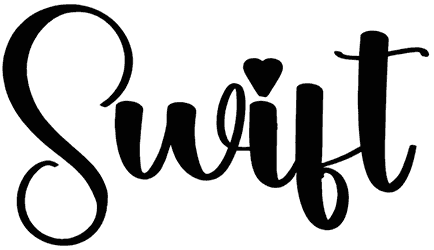
Swift Font
What holiday is around the corner now? You must be here for a reason, and we all know how great a love font like Swift will be for postcards and posters with a happy or festive theme.
Whether it’s Valentine’s Day, Christmas, Thanksgiving, or something personal like a birthday or an anniversary, our cursive font with its heart-shaped decorations and cute swashes will take care of it for you. And don’t you think it’ll be just as tasteful for welcoming spring?